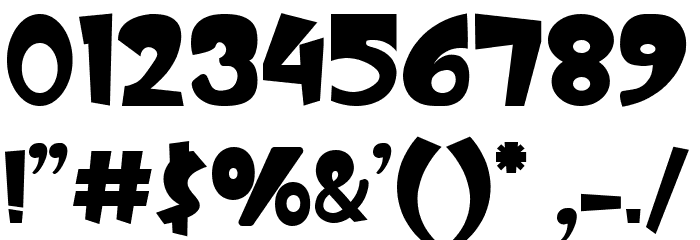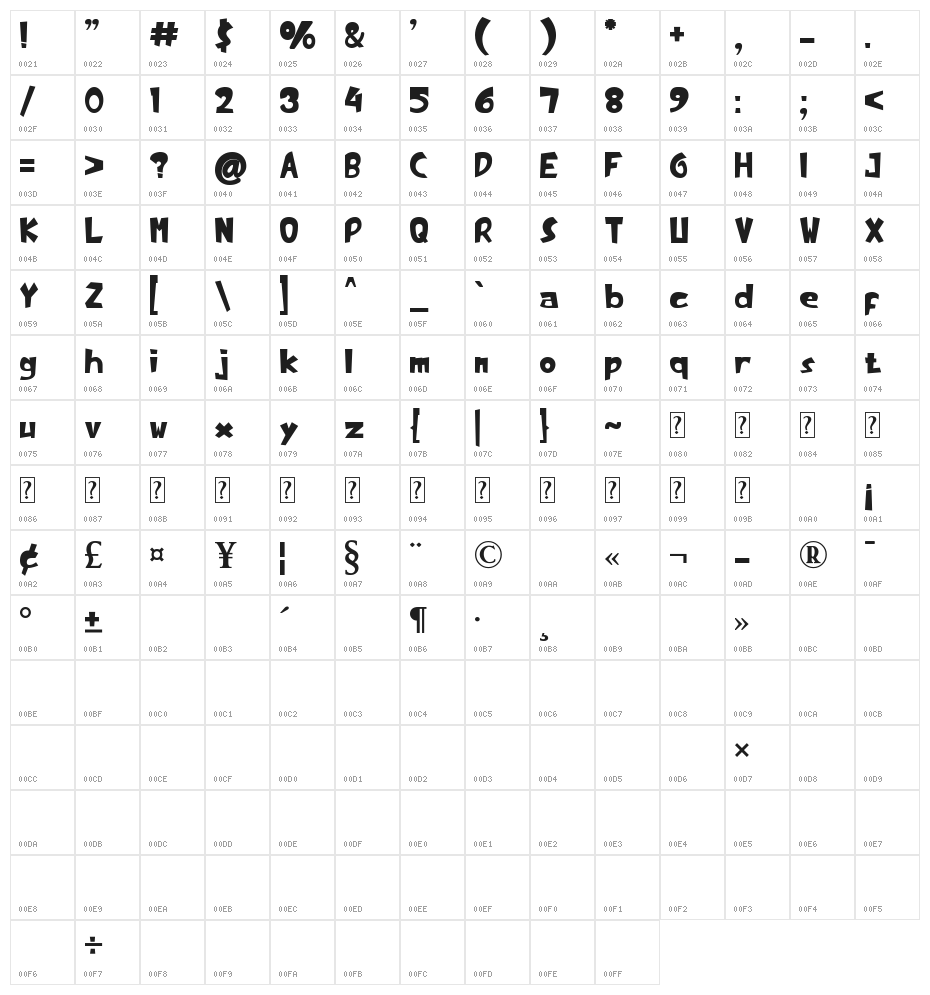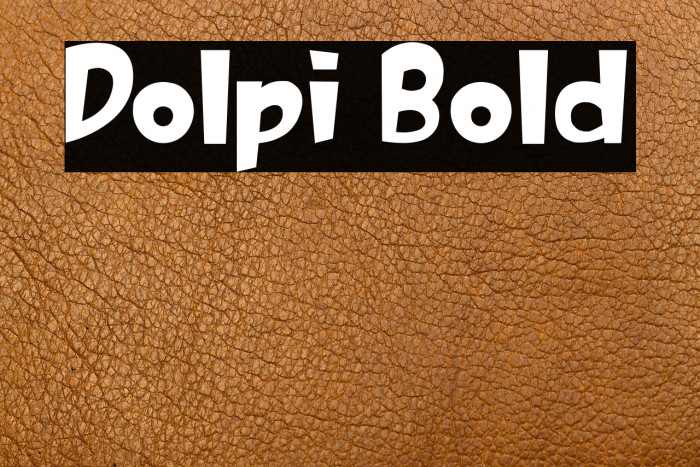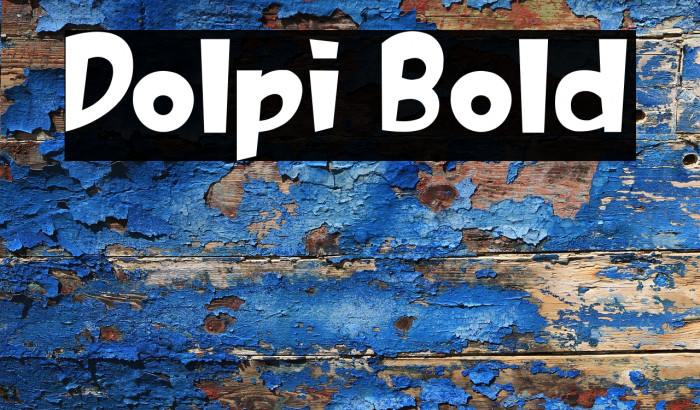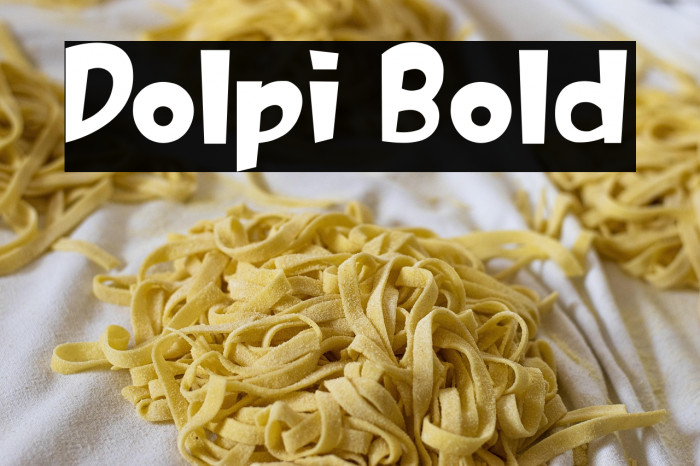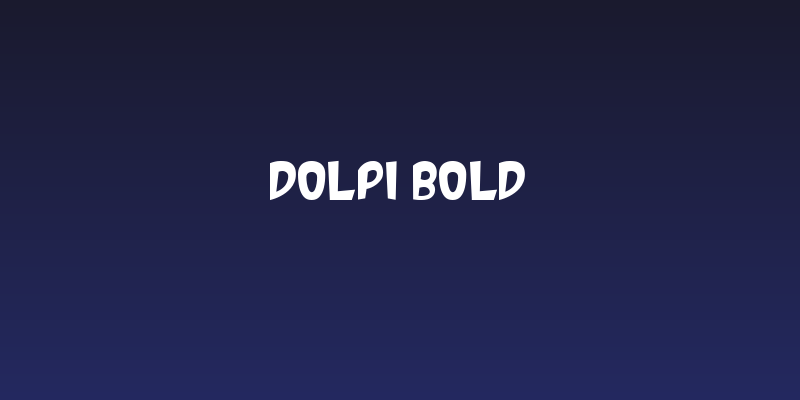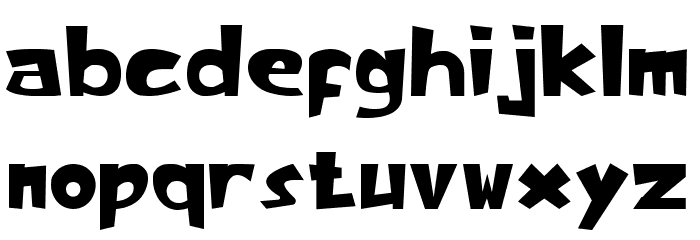
Dolpi Bold Font
Dolpi Bold Description
This font features a bold and playful style with exaggerated curves and angles, giving it a whimsical and dynamic appearance. The characters are thick and robust, with a slightly uneven baseline that adds to its quirky charm. The uppercase letters are particularly striking, with unique shapes that make each character stand out. The lowercase letters maintain the same playful aesthetic, ensuring consistency throughout the typeface. Numbers and special characters are equally bold and distinctive, making this font versatile for various design needs.
Overall StylePlayful, Whimsical
Proposed ProjectsIdeal for children's books, playful branding, posters, and creative advertising campaigns.